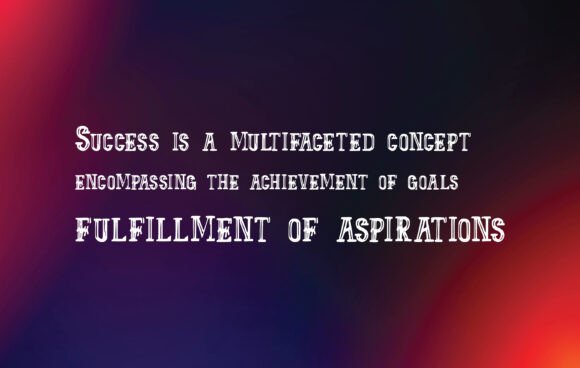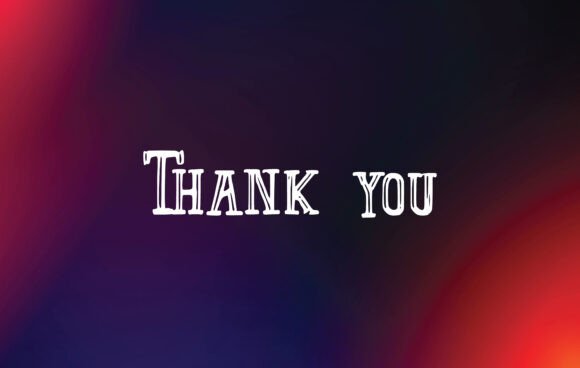
Cristian Font: Elevate Your Creative Projects with a Lovely Handwritten Style
Are you on the hunt for a font that can add a personal touch to your designs? Look no further than Cristian Font, a beautiful handwritten font that is sure to take your creative ideas to the next level. With its unique and elegant style, Cristian is the perfect choice for designers, crafters, and anyone looking to add a touch of sophistication to their projects.
The Characteristics of Cristian Font
Cristian Font is a lovely and beautiful handwritten font that boasts a range of characteristics that make it stand out from the crowd. Here are just a few of the features that make Cristian a top choice for designers:
- Handwritten style: Cristian Font has a warm, personal feel that is perfect for creating eye-catching logos, branding, and quotes.
- Elegant and sophisticated: The font’s elegant lines and curves give it a sophisticated feel that is sure to impress.
- Unique and distinctive: Cristian Font has a unique style that sets it apart from other fonts, making it perfect for designers looking to create something truly original.
- Versatile: Whether you’re creating a logo, branding materials, or social media graphics, Cristian Font is the perfect choice.
Why Choose Cristian Font?
So why should you choose Cristian Font for your next project? Here are just a few reasons why this font is a top choice for designers and crafters:
- Add a personal touch: Cristian Font’s handwritten style adds a personal touch to your designs, making them more relatable and engaging.
- Stand out from the crowd: With its unique and distinctive style, Cristian Font is sure to help your designs stand out from the crowd.
- Easy to read: Despite its elegant style, Cristian Font is easy to read, making it perfect for body text and captions.
- Scalable: Cristian Font is scalable, making it perfect for use in a range of applications, from business cards to billboards.
How to Use Cristian Font in Your Designs
So how can you use Cristian Font in your designs? Here are a few ideas to get you started:
- Logos and branding: Use Cristian Font to create eye-catching logos and branding materials that showcase your unique style.
- Quotes and posters: Cristian Font is perfect for creating inspirational quotes and posters that are sure to grab attention.
- Social media graphics: Use Cristian Font to add a personal touch to your social media graphics, including Facebook posts, Instagram stories, and Twitter headers.
- Packaging and labels: Cristian Font is a great choice for packaging and labels, adding a touch of elegance and sophistication to your products.
Tips for Getting the Most Out of Cristian Font
Here are a few tips for getting the most out of Cristian Font:
- Experiment with colors: Cristian Font looks great in a range of colors, so don’t be afraid to experiment and find the perfect hue for your design.
- Play with font sizes: Cristian Font is scalable, so try using it in a range of font sizes to add visual interest to your design.
- Pair it with other fonts: Cristian Font pairs well with a range of other fonts, so try combining it with other styles to create a unique look.
In conclusion, Cristian Font is a beautiful handwritten font that is sure to take your creative ideas to the next level. With its elegant style, unique characteristics, and versatility, Cristian is the perfect choice for designers, crafters, and anyone looking to add a touch of sophistication to their projects.